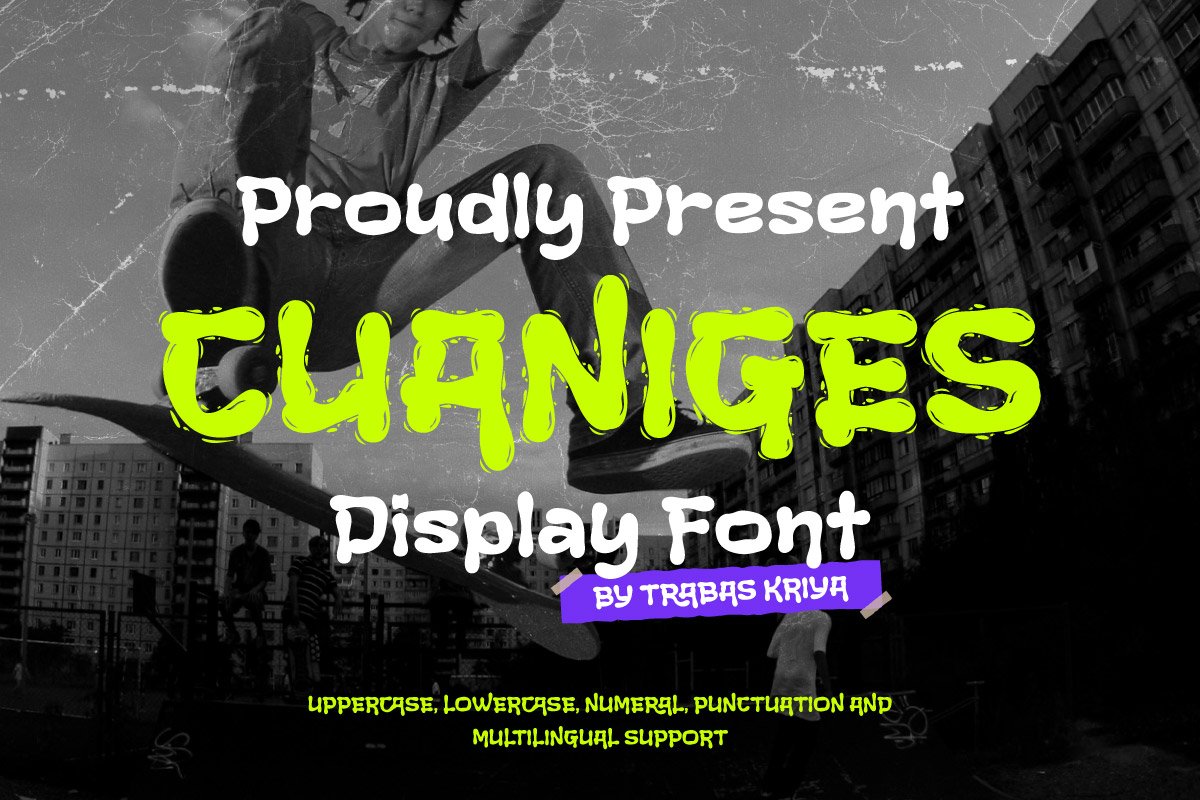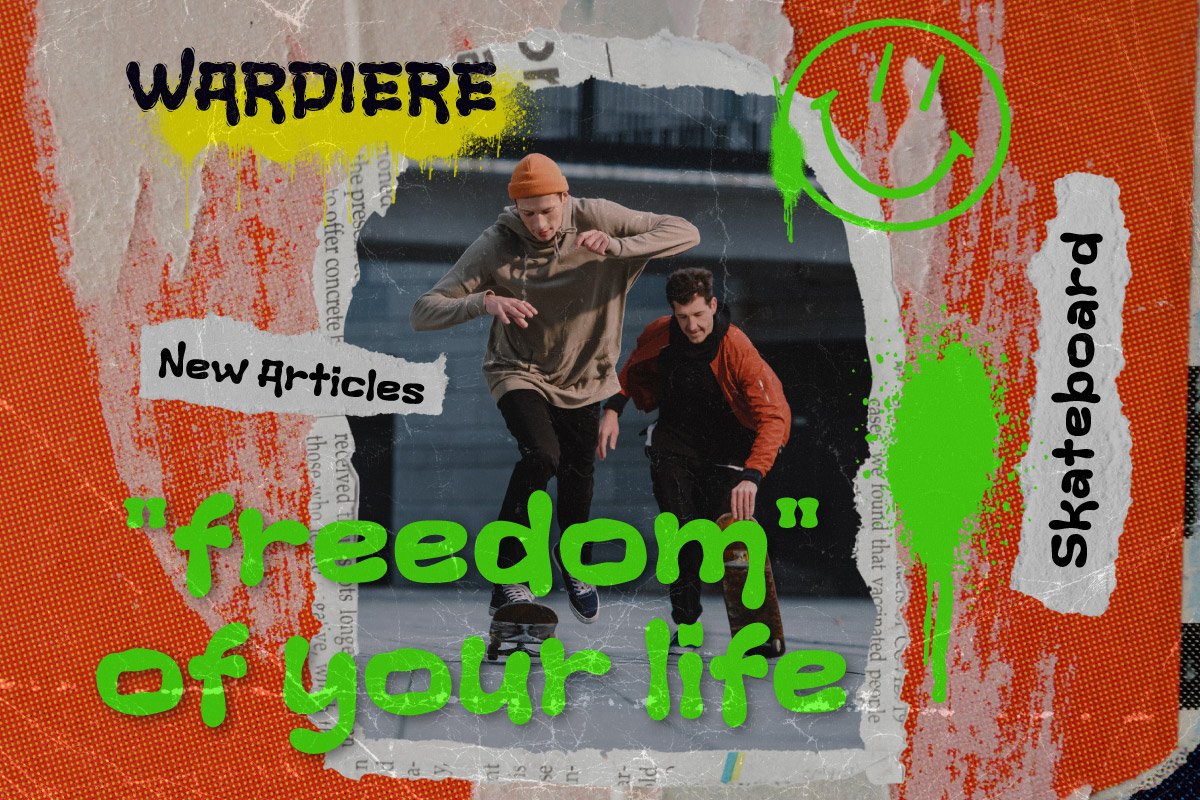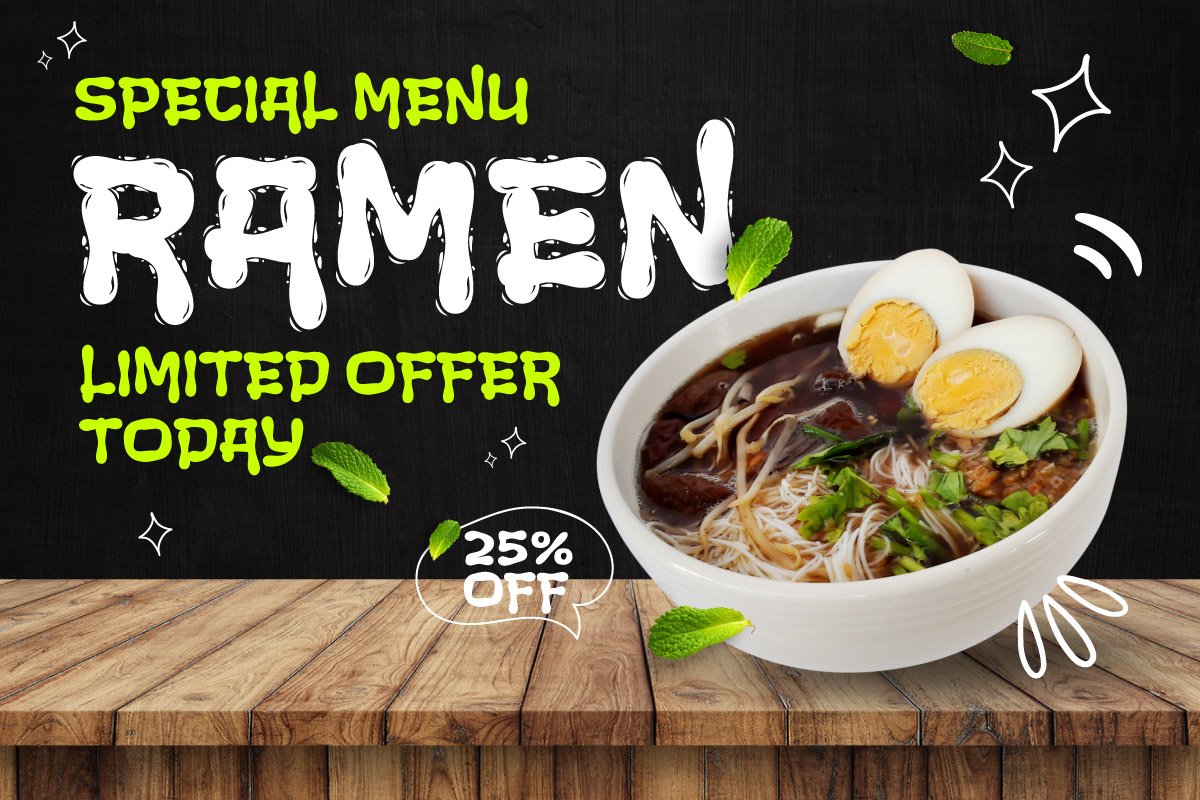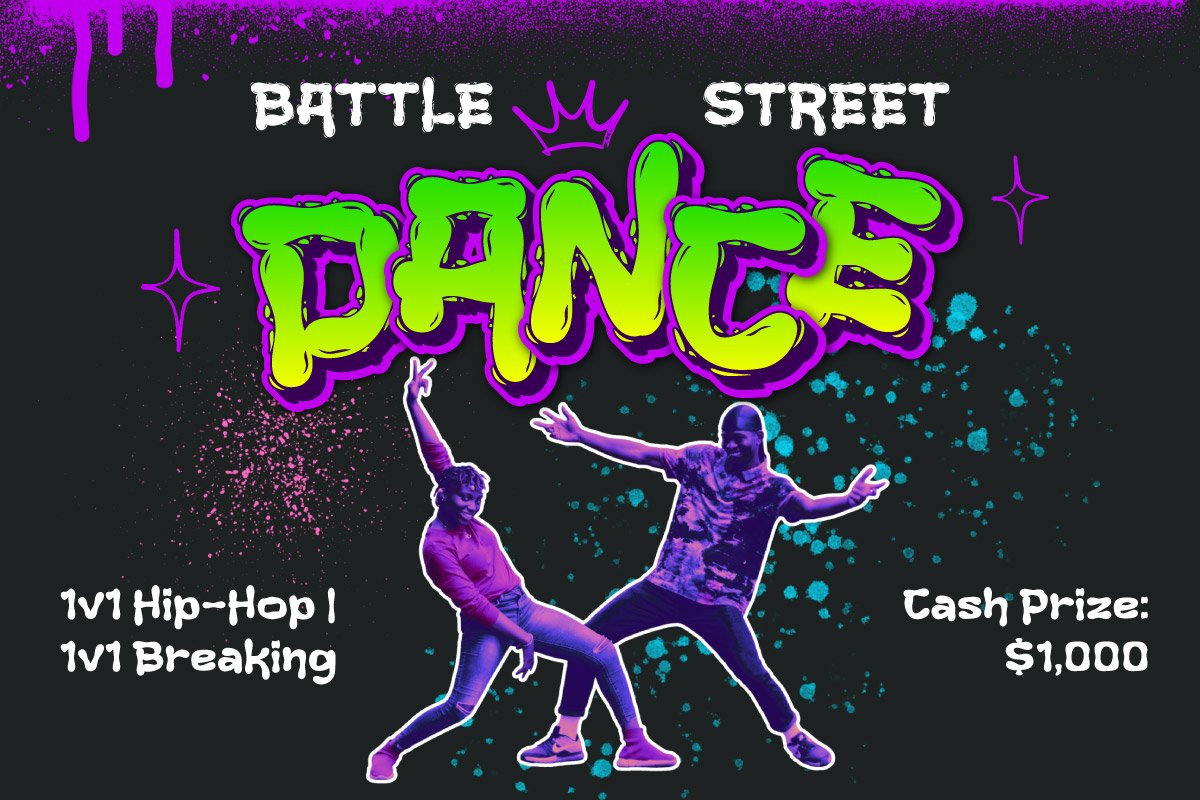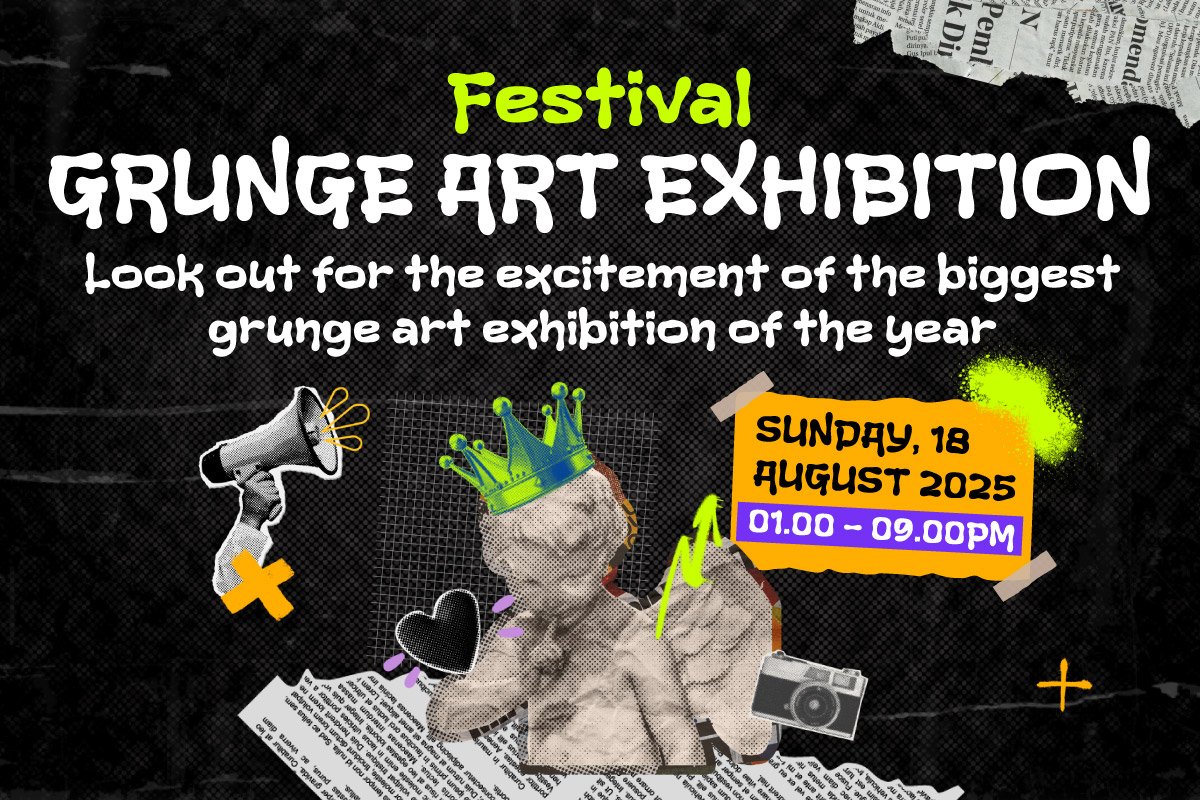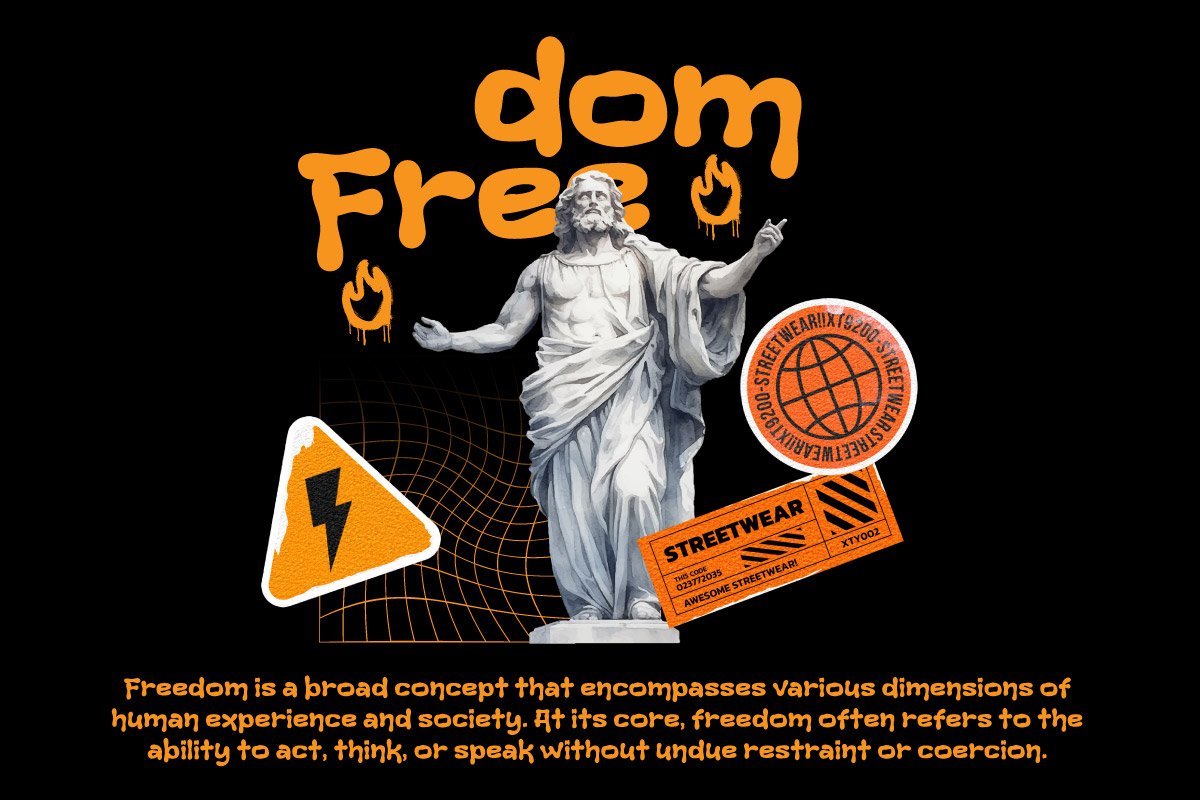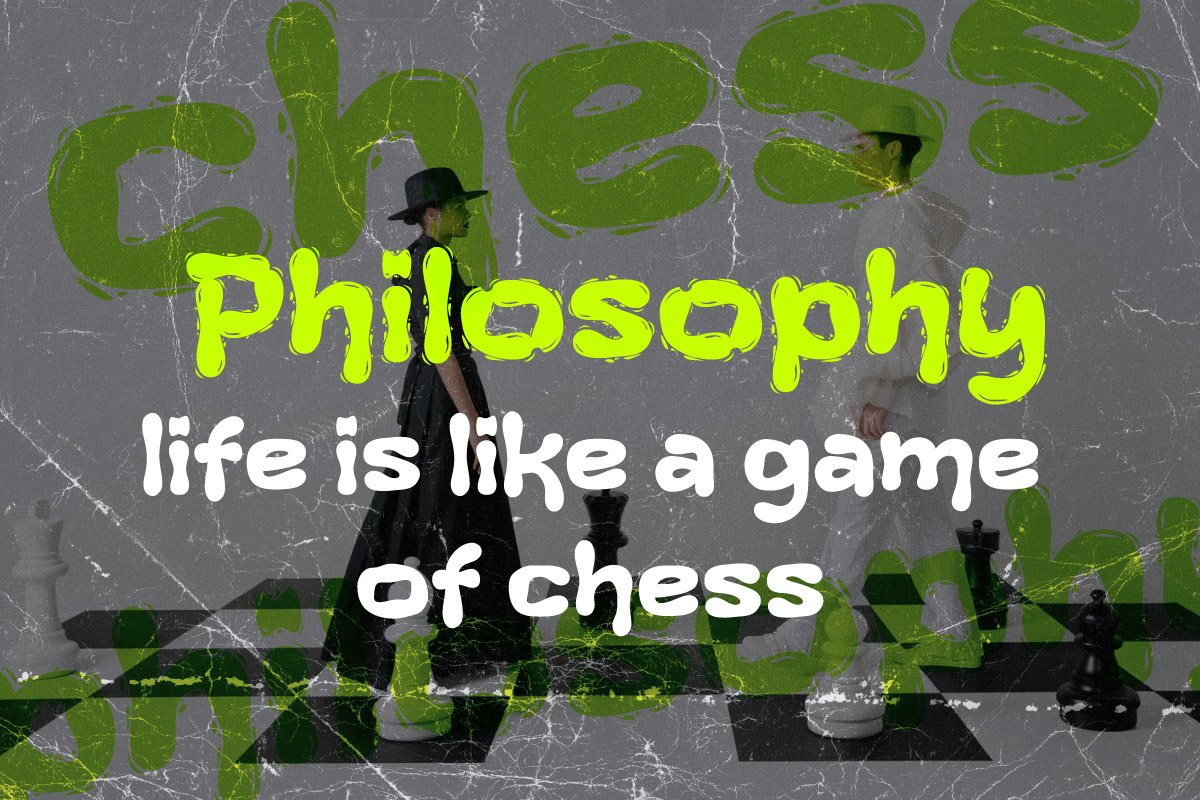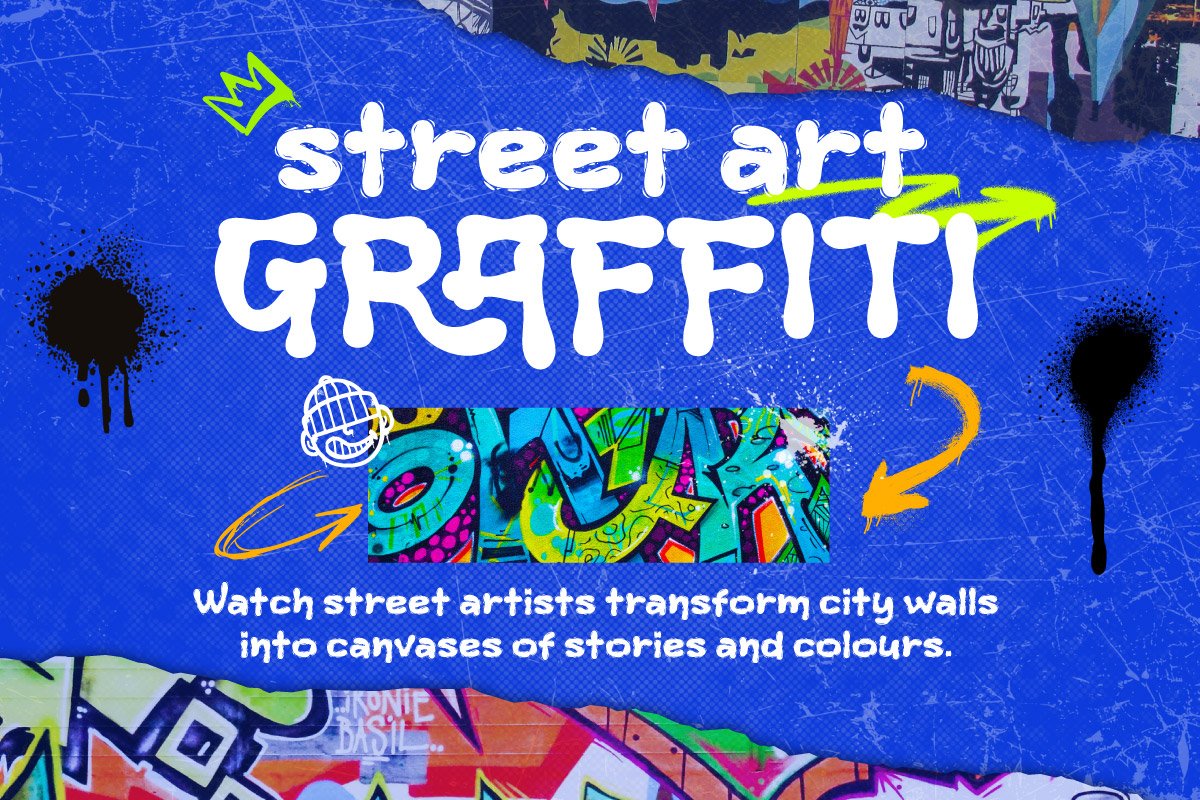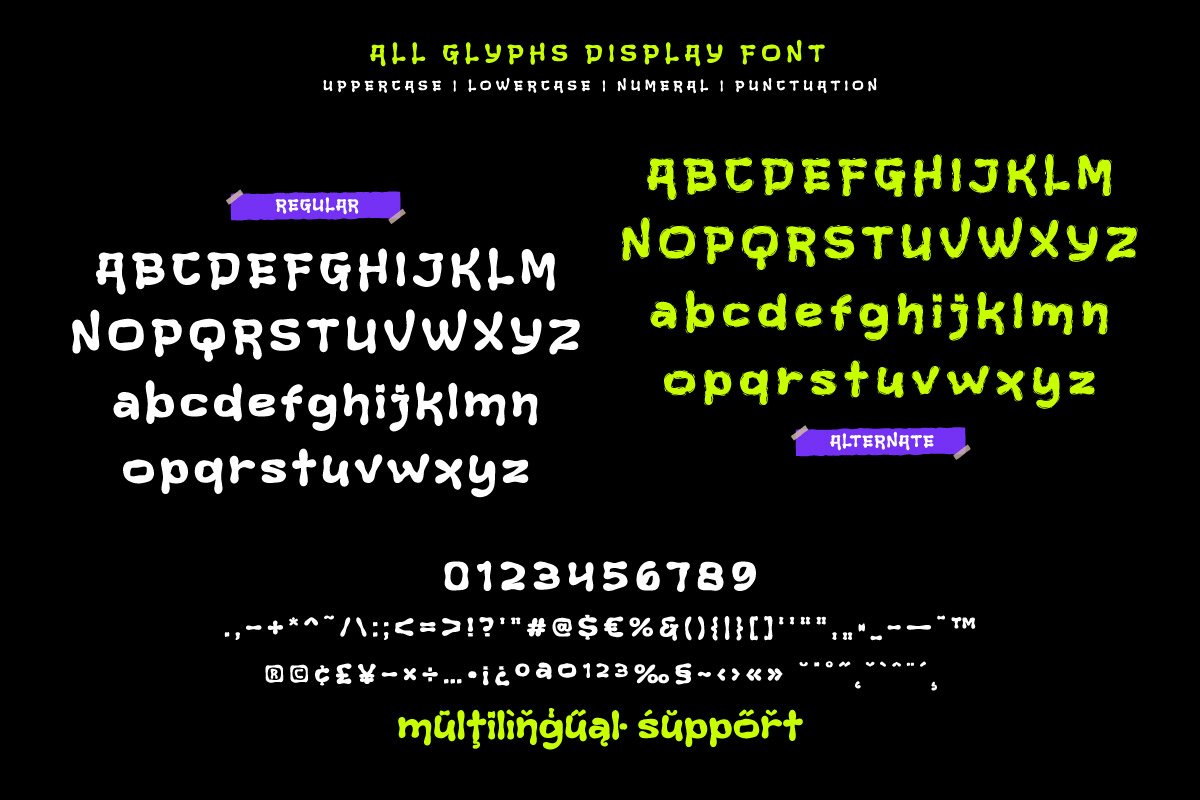
Cuaniges – Rustic Display Font
Cuaniges is a rustic graffiti display font that embodies boldness, rebellion, and raw street energy. Inspired by the urban spirit and underground art culture, this font carries an edgy personality that instantly makes your design stand out. Its rough strokes and playful shapes bring authenticity and power to every word.
Perfect for posters, streetwear branding, album covers, event promotions, or digital artwork, Cuaniges delivers a fearless vibe that commands attention. Its unique rustic graffiti style makes it versatile for projects that aim to capture the essence of youth, freedom, and urban creativity.
With Cuaniges, typography becomes more than just text—it becomes a visual shout. It invites the audience to feel the rhythm of the streets, the daring movement of graffiti, and the pulse of modern underground culture. A perfect companion for bold and unapologetic designs.